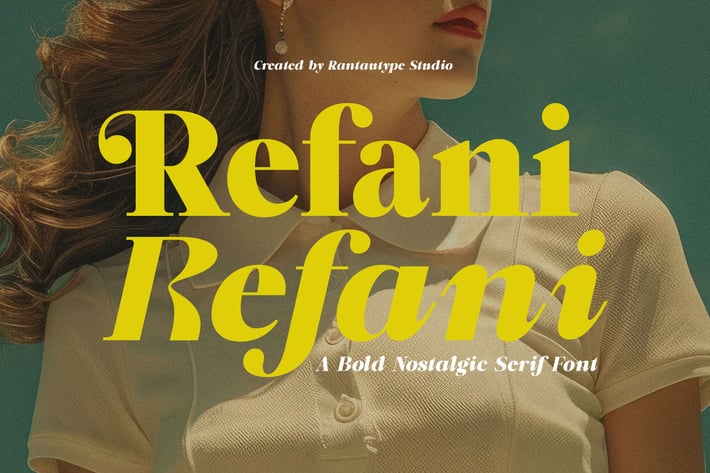
Refani Nostalgic Serif Font
Refani is a elegance eighties magazine inspired serif with complementary italic version. Refani bring bold shape that embraces strong, luxorious and grace, both come in two versions one with more contrast and crisper than the other. In true Eighties style, combination the reguler and italic make nostlagic but elegant, mix and match them to create creative design project. With its versatility and contemporary appeal.